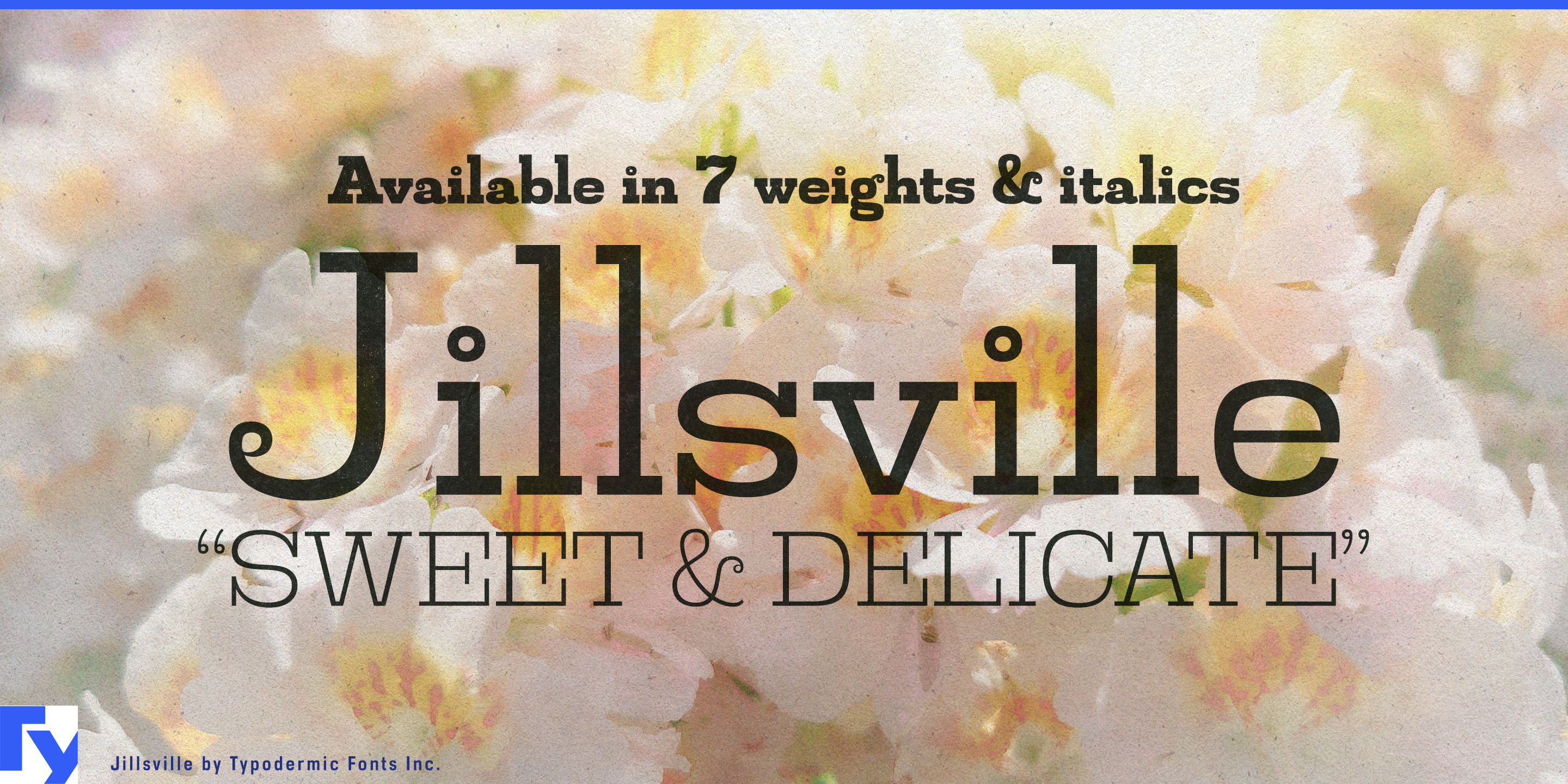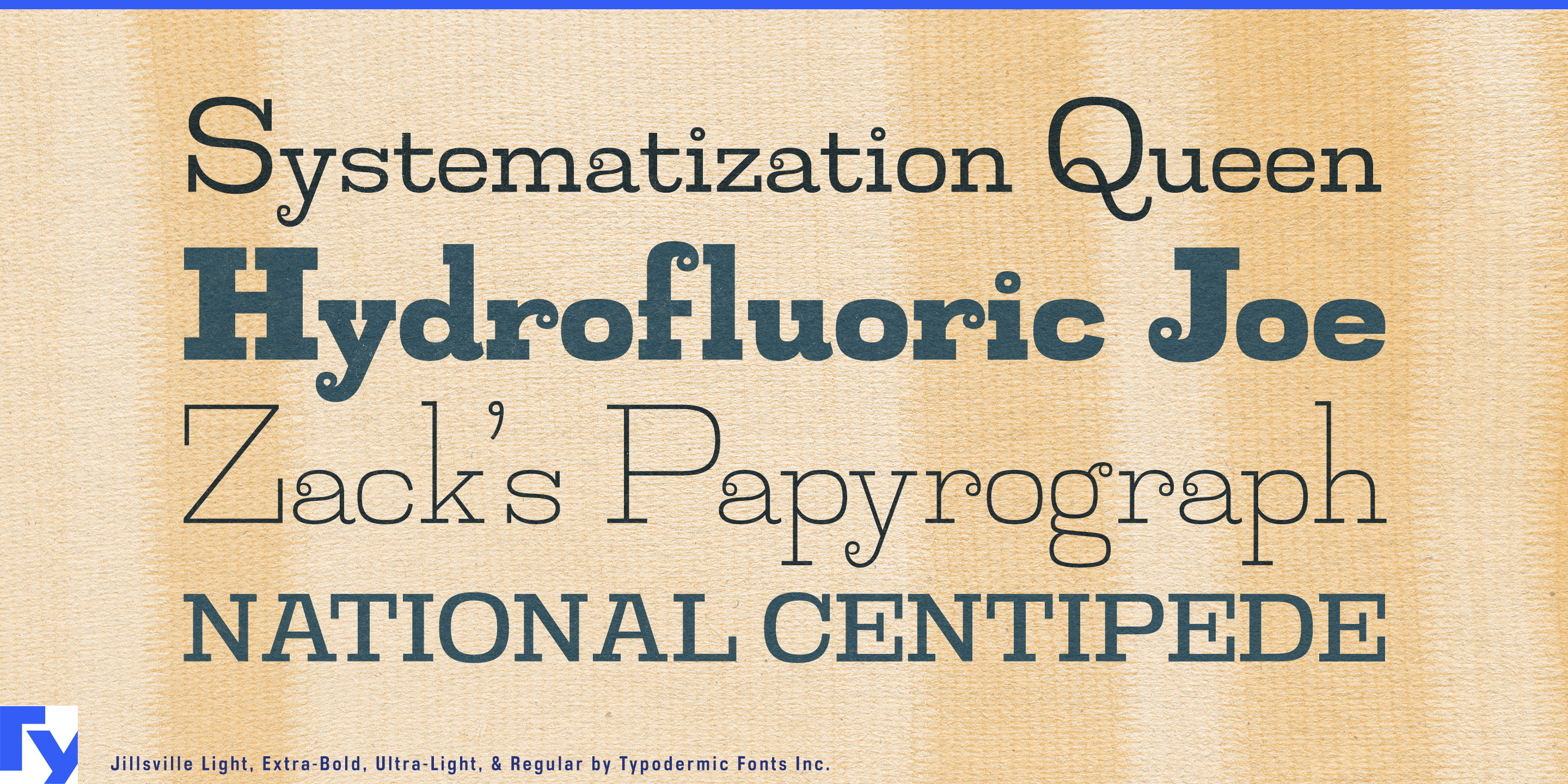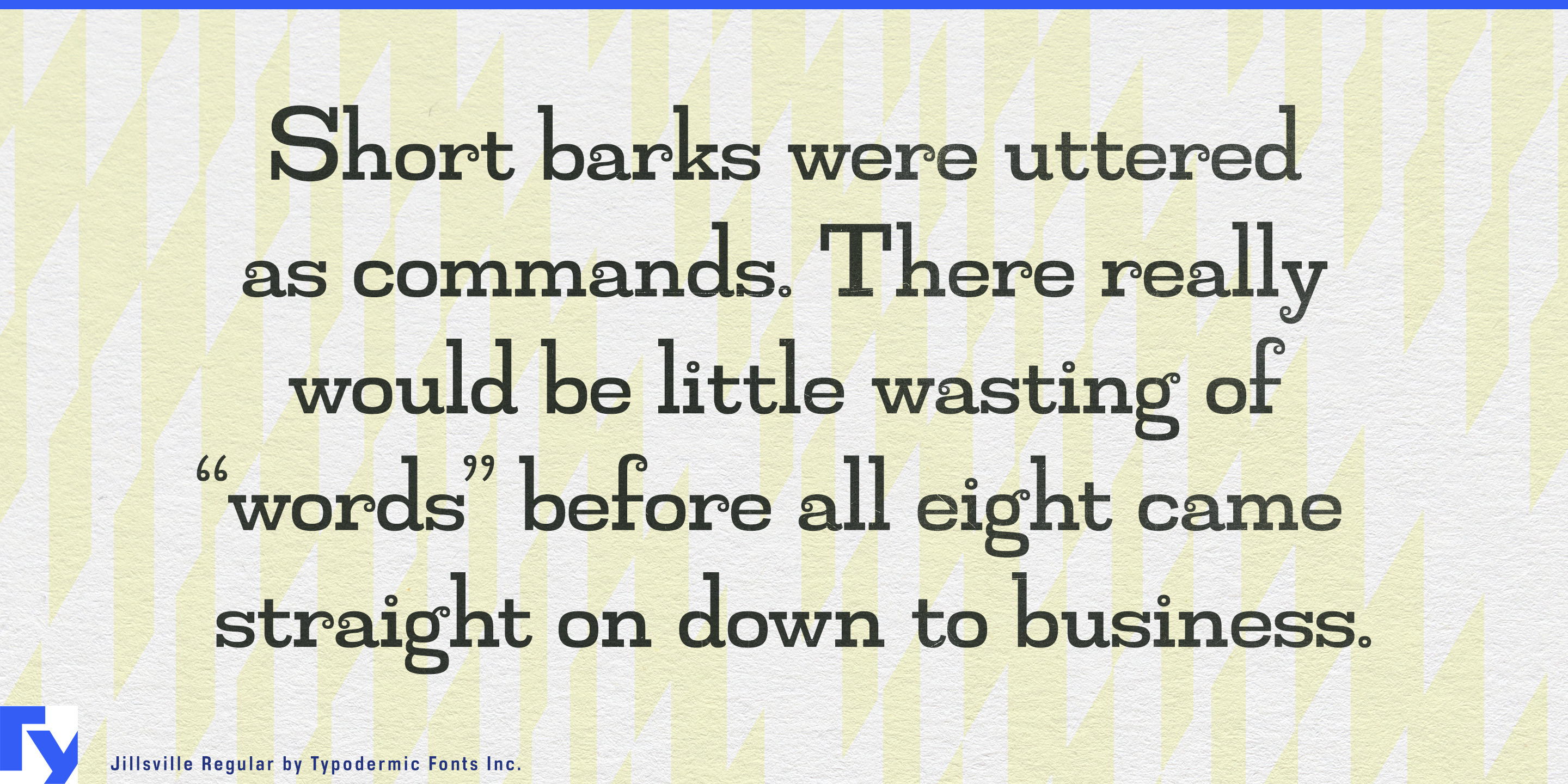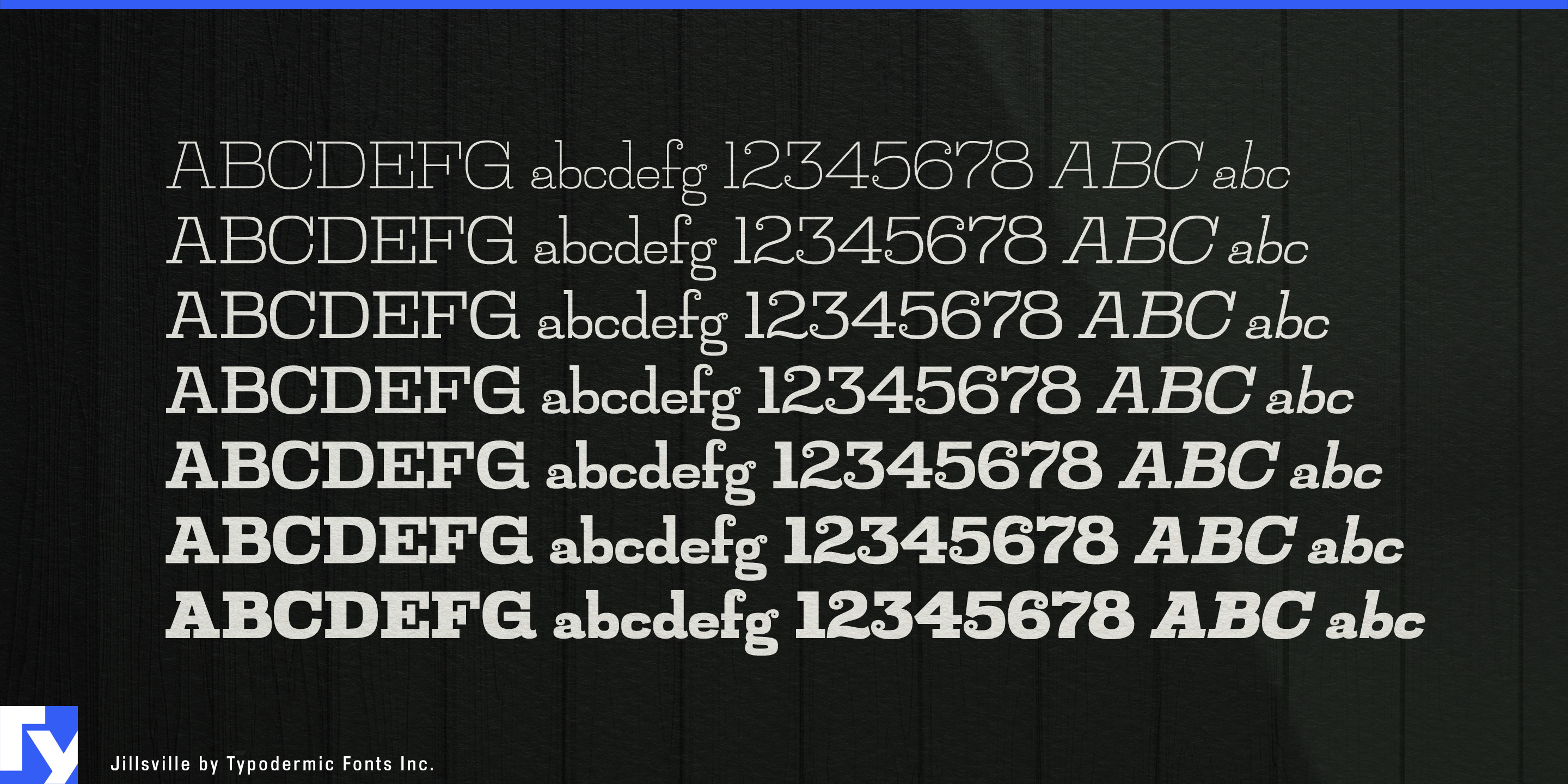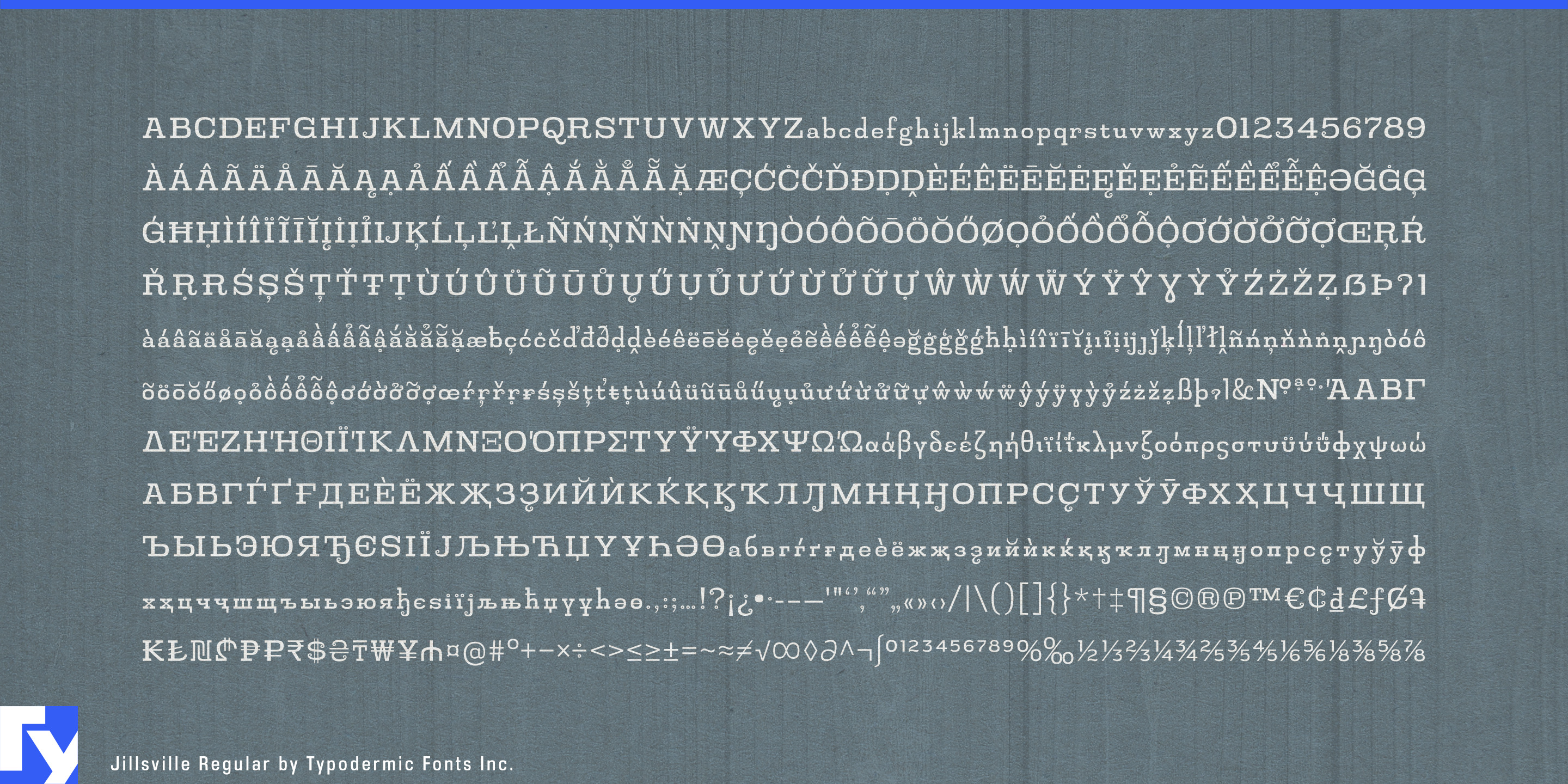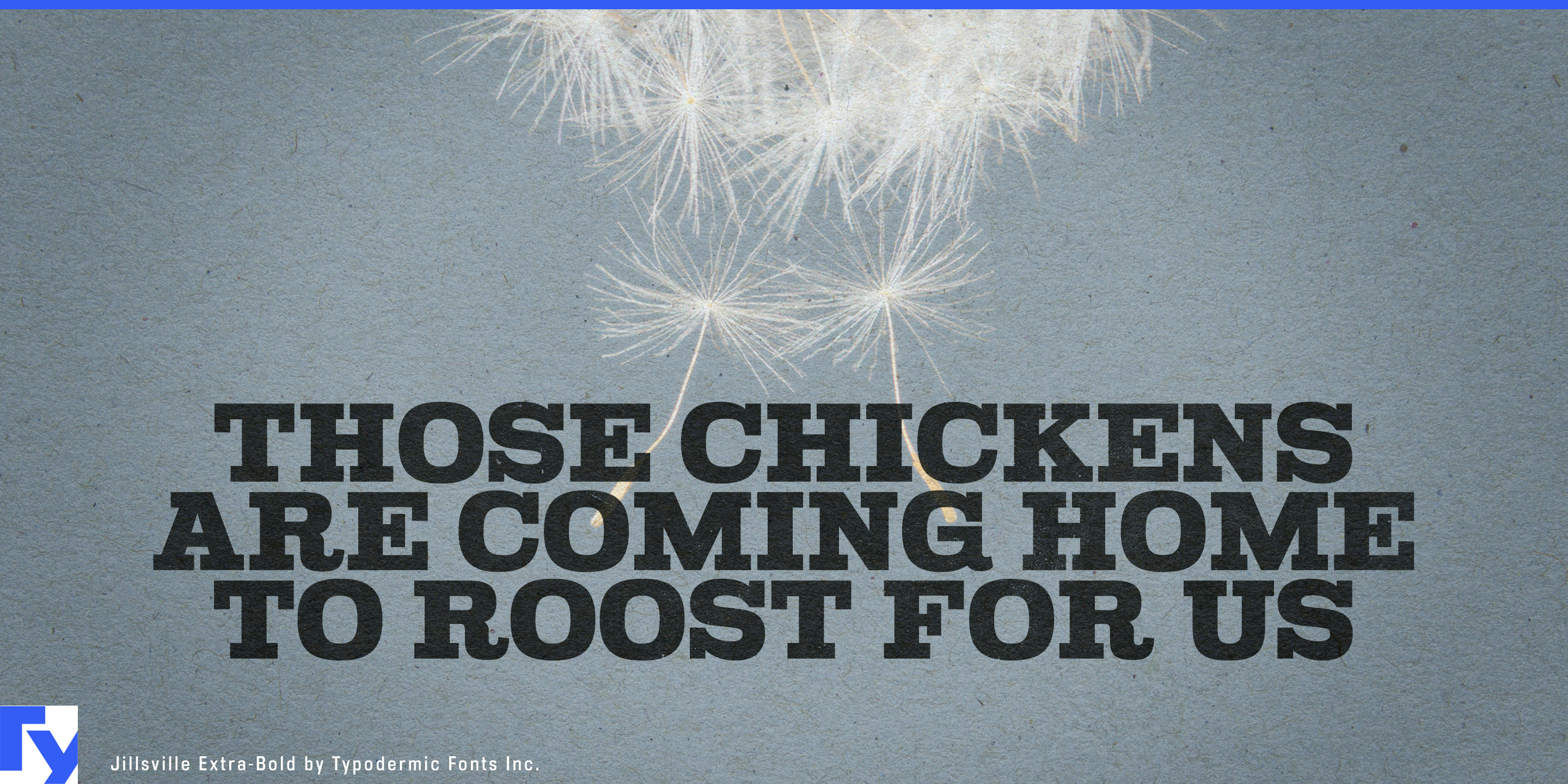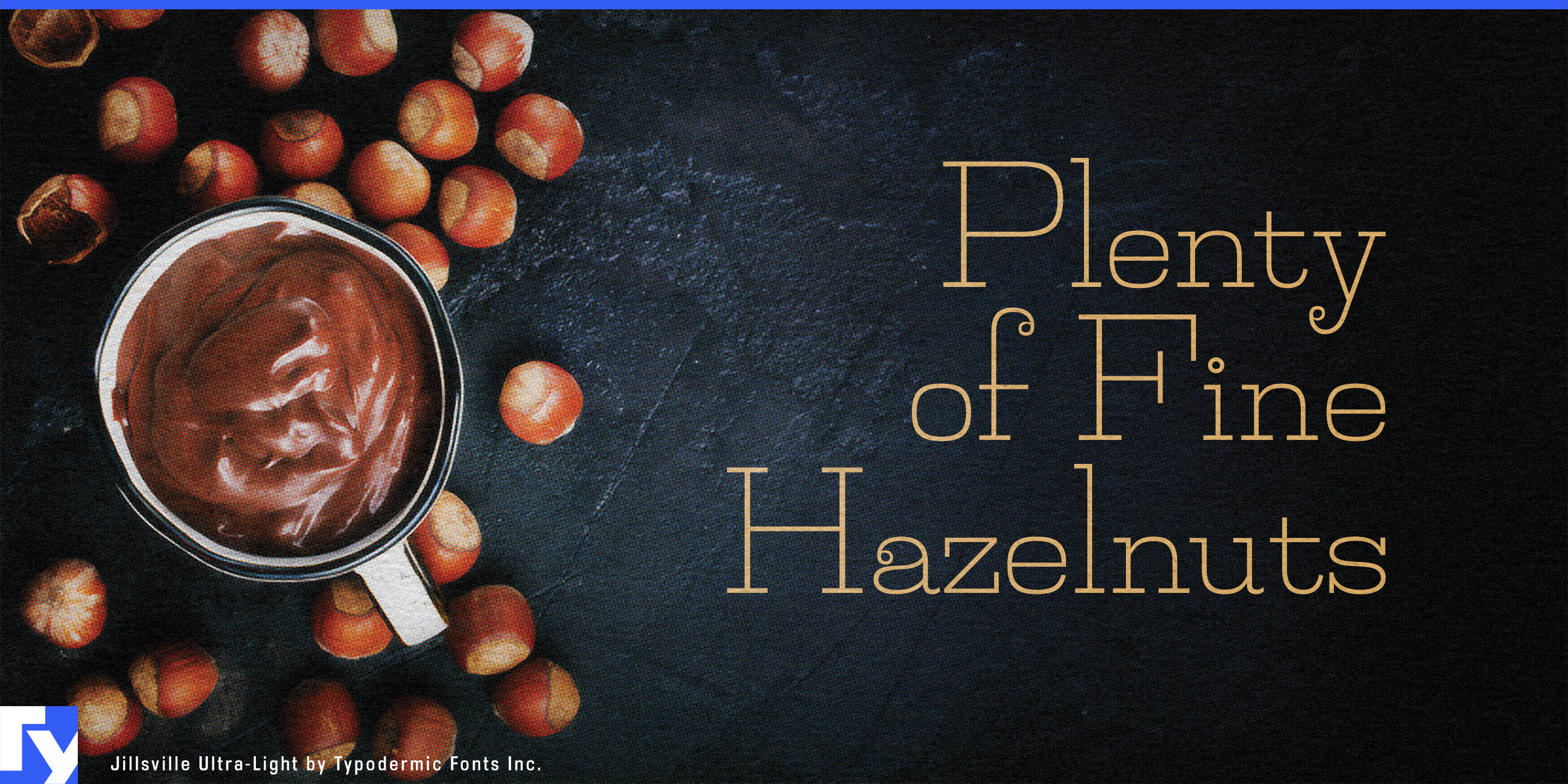
Jillsville
Cute typography often comes with a tradeoff. Push too far toward sweetness and the result can feel childish; reach for a slab serif and the mood often swings toward workwear, newspapers or something deliberately sturdy. Jillsville sits in a rarer middle ground. Its low x-height, small loops and rounded details soften the slab construction without taking away its structure, giving it a friendly decorative quality that still has enough weight to hold a product name together.
Chocolate is especially natural territory. Chocolate bars, truffle boxes, praline assortments, bonbon collections, hot-chocolate mixes and hazelnut spreads need lettering that can suggest pleasure and charm without looking either rustic or austerely luxurious. Jillsville can make a chocolate name feel inviting while its slabs keep the packaging from drifting into delicate script territory.
Gift confectionery broadens that idea. Filled biscuits, petits fours, macarons, fruit jellies, seasonal sweets and boxed assortments are often bought as presents rather than everyday snacks, so the typography has to feel charming and presentable at the same time. Jillsville suits gift boxes, seasonal displays and shop signs that need warmth without looking juvenile.
Patisseries, dessert cafés and tea rooms give the family room to work beyond packaging. Shop names, pastry boxes, afternoon-tea cards, dessert-menu headings and individual cake names can use Jillsville at the larger sizes where its unusual lowercase details are easy to appreciate. A more conventional companion face can handle ingredients, prices and longer descriptions.
Baking products and sweet pantry goods offer another useful home. Cookie boxes, cake mixes, specialty jams, syrups, spreads and baking kits can use the same combination of friendliness and structure. Jillsville works particularly well when the product should feel pleasurable and slightly decorative without falling into either farmhouse nostalgia or children’s branding.
Its personality also travels naturally into needlecraft and small creative shops. Yarn labels, knitting stores, embroidery kits, sewing-pattern covers and fabric boutiques benefit from typography that feels handmade-adjacent without actually looking handwritten. Stationery, journals, wrapping paper and seasonal giftware can draw on the same quality.
The low x-height makes Jillsville better suited to display typography than small print, so it is most effective in names, headings, labels and short prominent lines where its loops and proportions have room to show. It is a slab serif for subjects that need sweetness without infantilization and sturdiness without toughness; especially at home on a chocolate box, pastry-shop window, yarn label, gift set or dessert menu.